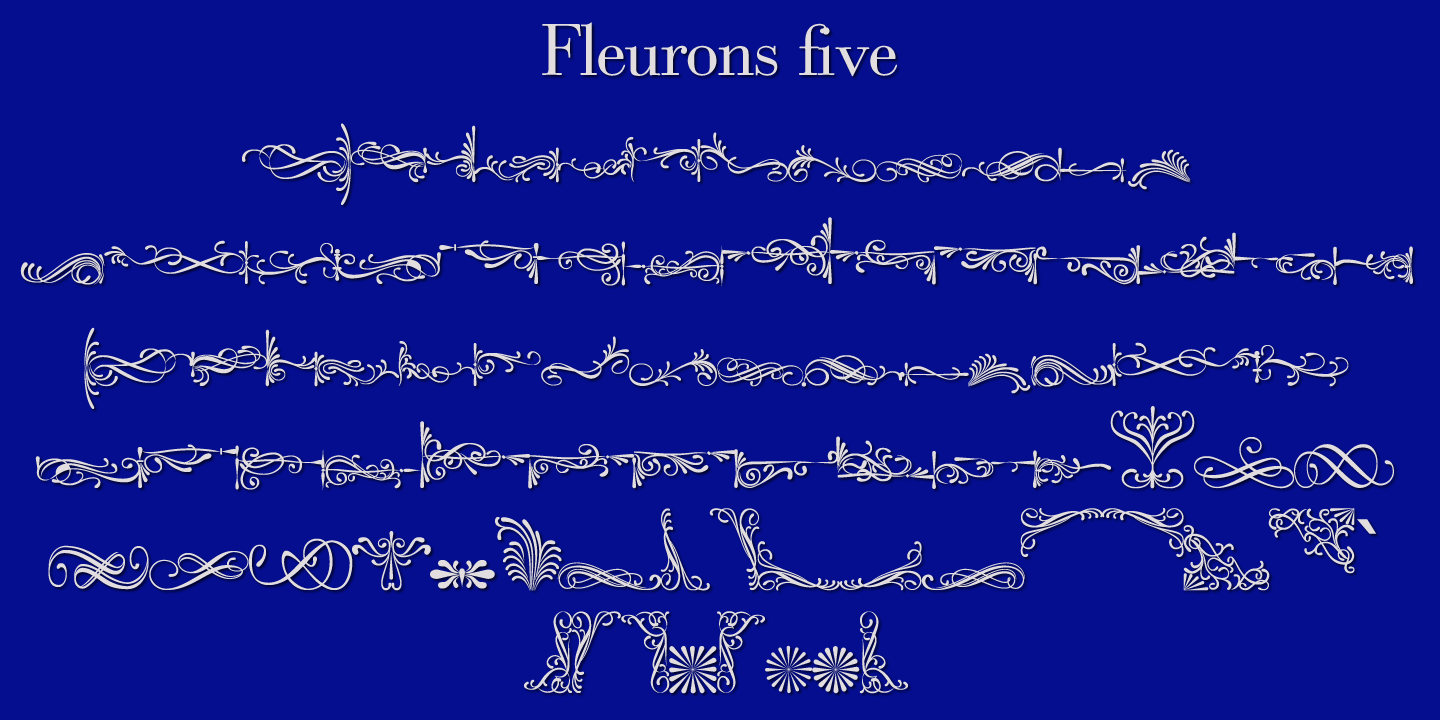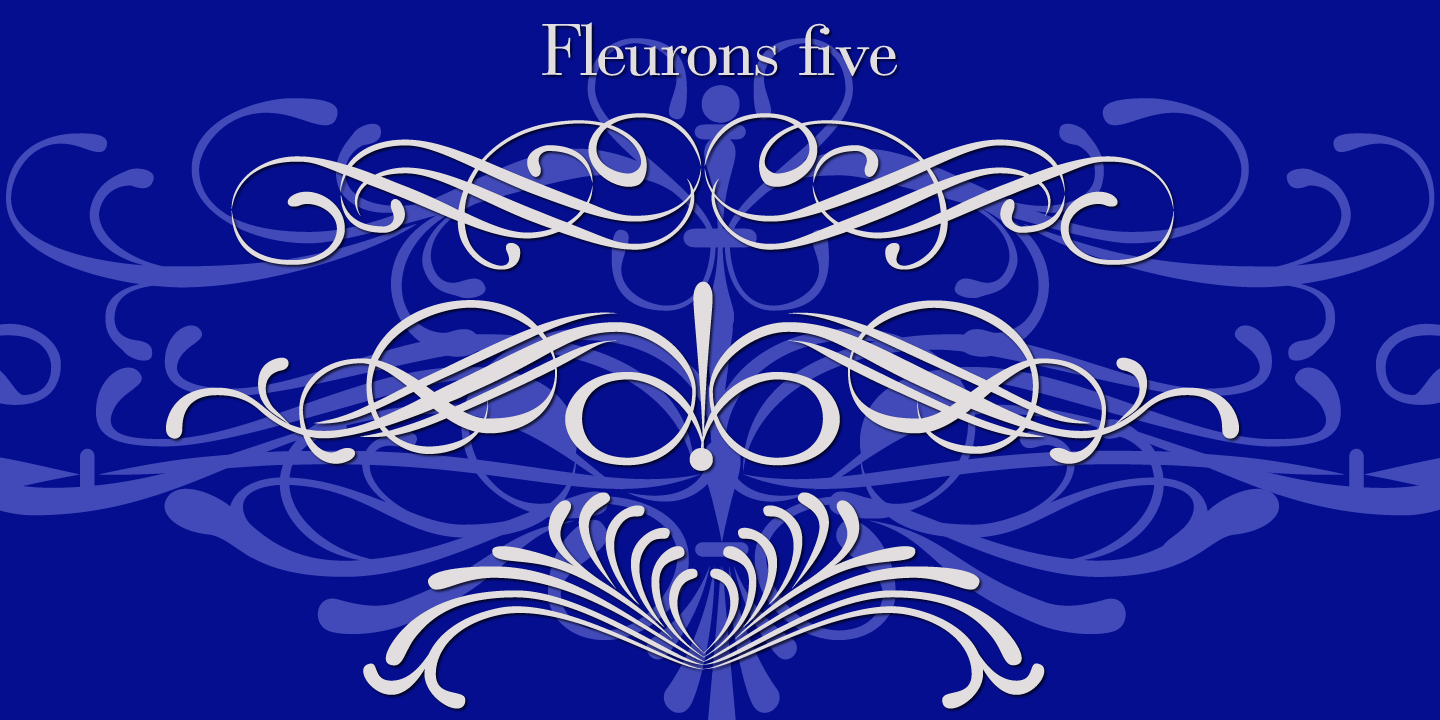
Fleurons V
Font Family by Wiescher Design
Buy NowFleurons are embellishments and here is my fifth set.
I again found some nice old ones and made them completely new. These very elaborate ones go extremely well together with my scripts Nadine and Ellida!!!